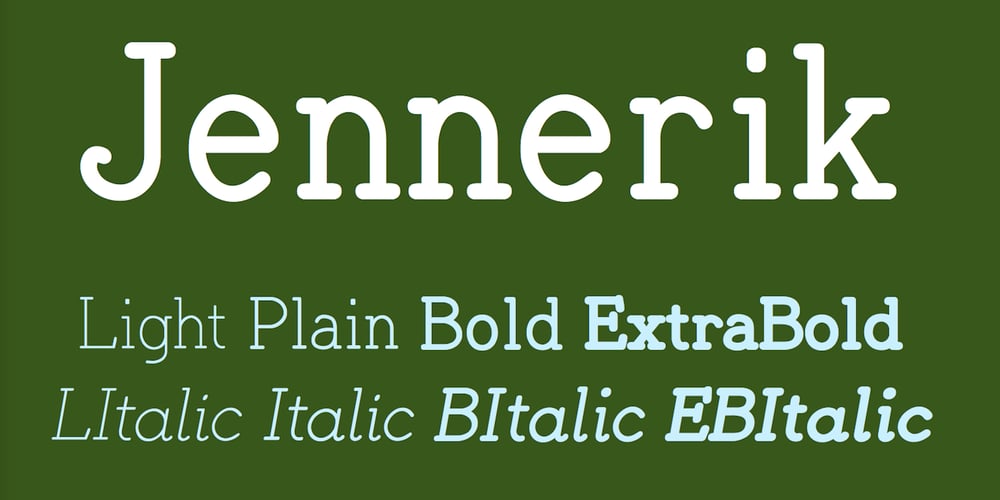
Jennerik Font Family was designed by Robert Schenk and published by Ingrimayne Type. Jennerik contains 8 styles and family package options. Jennerik is a plain, serifed face in which the strokes are uniform or monolinear. It has four weights and each weight has both upright and italics styles. Its name reflects its plain, simple design. It is slightly condensed and the regular style was originally designed for printing rough drafts.